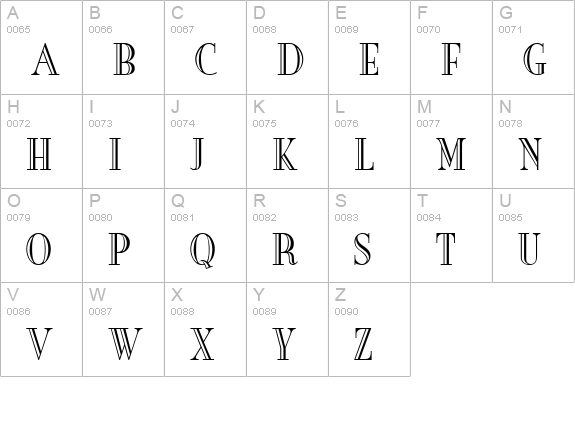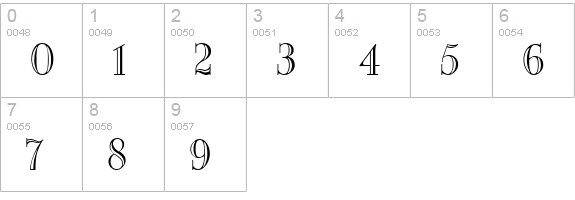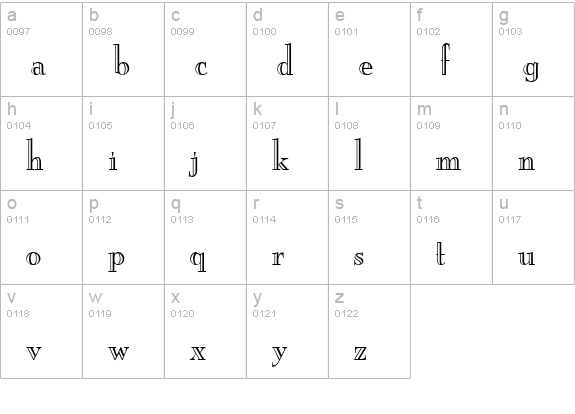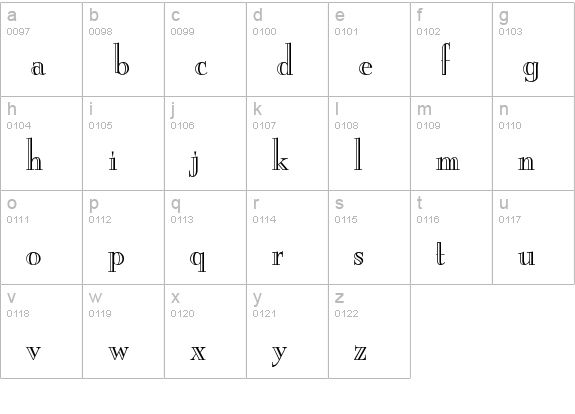
New England Engraved Normal Font Details
New England Engraved Normal is the standard, neutral variant in the New typeface family \xE2\x80\x94 well suited to general body text, paragraphs, and standard typographic work.
New England Engraved Normal font is a classic and elegant typeface that exudes sophistication and timelessness. With its crisp lines and intricate details, this font is perfect for adding a touch of refinement to any project. Whether you're creating invitations, branding materials, or signage, New England Engraved Normal font will elevate your designs to the next level. The best part is, this exquisite font is available for free download at FontsMarket.com. Simply head over to the website to get your hands on this beautiful typeface and start using it in your projects today. Don't miss out on the opportunity to enhance your designs with the timeless charm of New England Engraved Normal font - download it now and see the difference it can make!